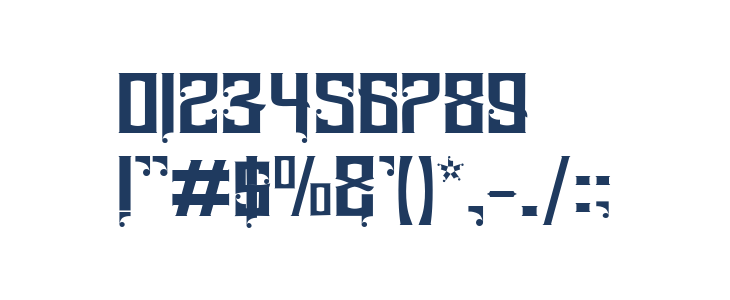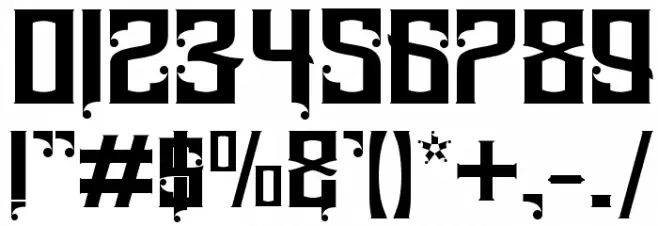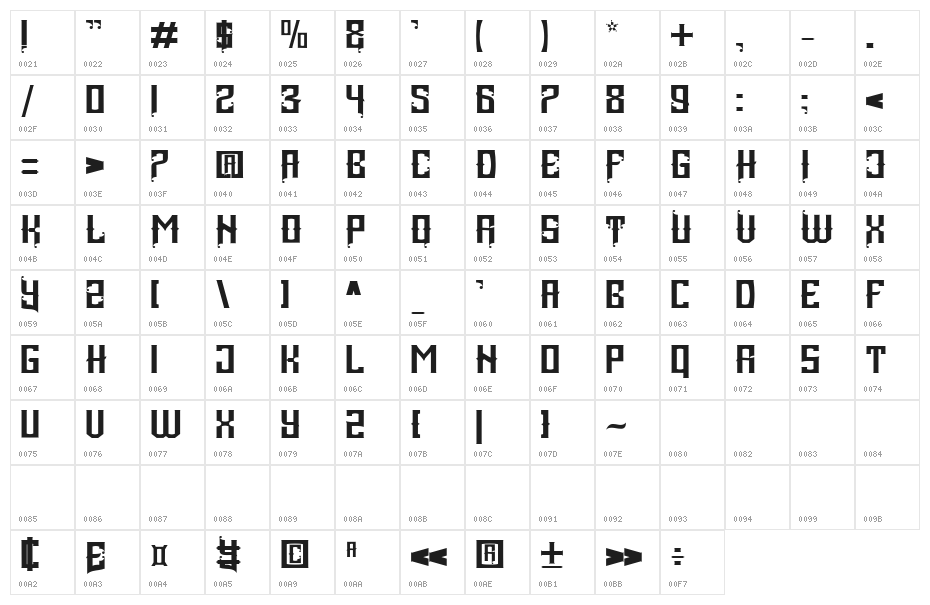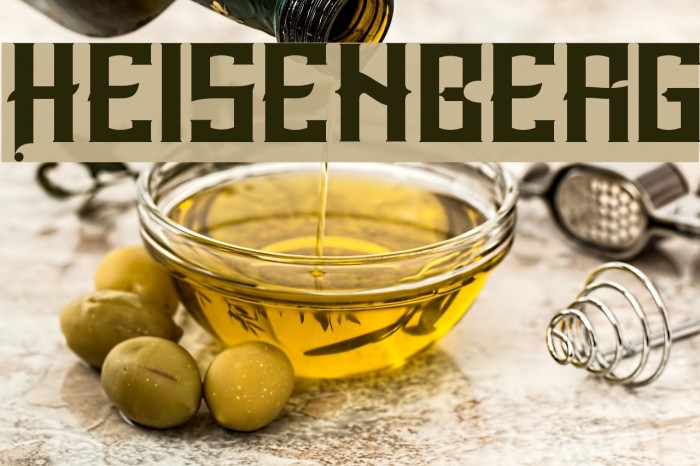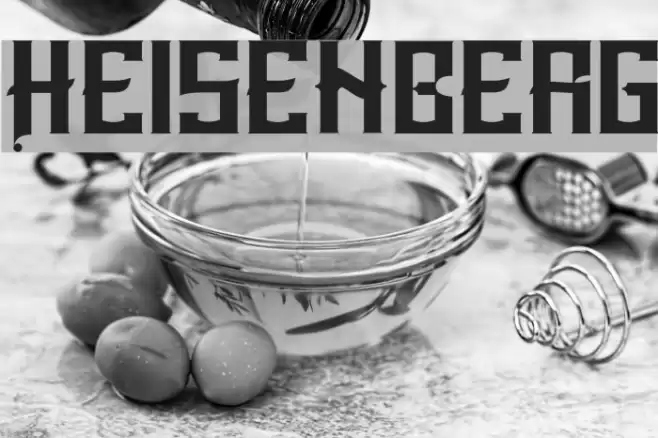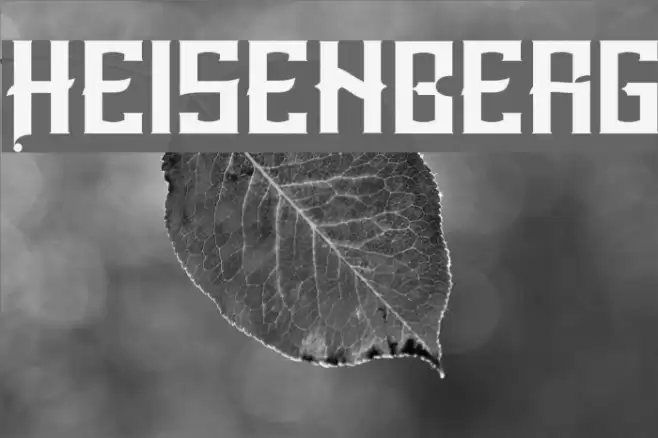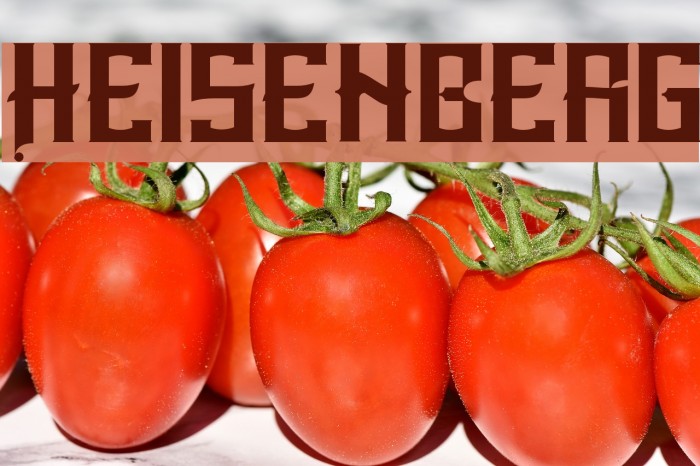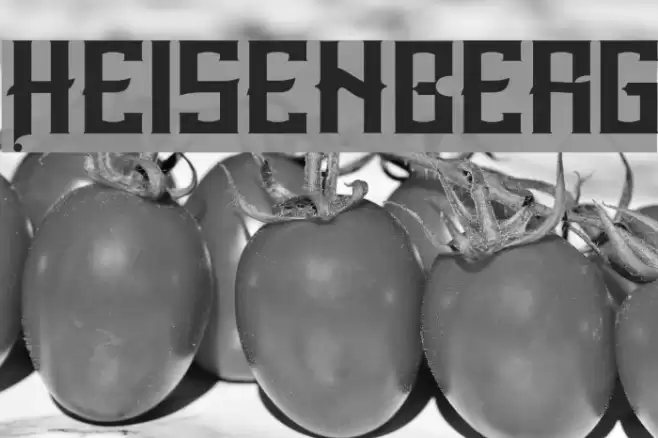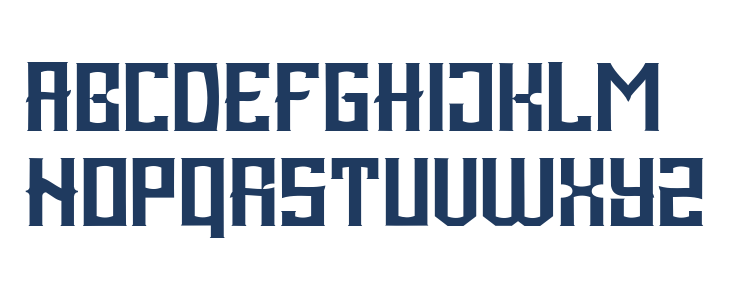
Heisenberg Font
Heisenberg Description
This font features a bold, decorative style with a distinct gothic influence. Each character is designed with sharp, angular lines and unique ornamental elements that resemble small hooks or spikes, adding a dramatic flair. The uppercase and lowercase letters maintain a consistent height, creating a uniform appearance. The numerals and special characters are equally stylized, ensuring cohesion across all glyphs. The font's intricate details and strong presence make it ideal for impactful designs.
| Proposed Projects | Ideal for projects requiring a dramatic and eye-catching typeface, such as posters, album covers, or branding for edgy or alternative products. |